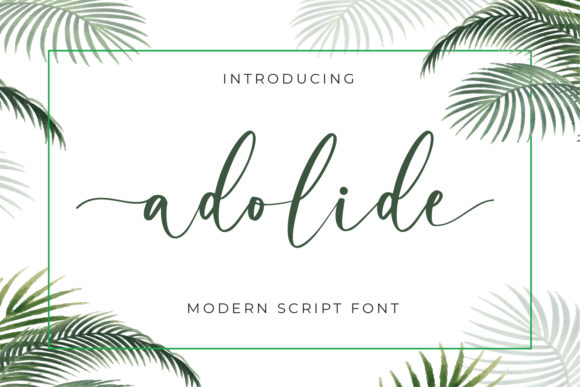
Journey into the realm of elegance with Adolide Font, a script typeface that will transform your creative visions into masterpieces. Its delicate strokes, reminiscent of a skilled calligrapher's hand, will breathe life into your designs, capturing the essence of heartfelt emotions and timeless beauty.
Adolide Font: The Epitome of Sophistication
Adolide Font is a symphony of grace and sophistication, meticulously crafted to elevate your projects with an aura of refinement. Its balanced and varied structure, neither too thin nor too thick, ensures harmony in every letterform, enhancing the visual appeal of your creations.
Embrace the Versatility of Adolide Font
Adolide Font is a versatile chameleon, effortlessly adapting to a myriad of design endeavors. Whether it's wedding invitations adorned with intricate flourishes, heartfelt love letters penned with romantic charm, or captivating social media posts that demand attention, Adolide Font rises to every occasion with unwavering elegance.
Unleash Your Creativity with Adolide Font
Adolide Font is your creative playground, inviting you to explore the boundless possibilities of self-expression. Let your imagination soar as you craft stunning logos that exude professionalism, design eye-catching posters that captivate audiences, or create enchanting branding materials that leave a lasting impression.
Adolide Font: A Testament to Quality
Adolide Font is a testament to quality, meticulously crafted with the utmost care and attention to detail. Each letterform is a work of art, carefully shaped to ensure legibility and visual harmony. The result is a font that exudes sophistication and professionalism, elevating your projects to new heights.
Experience the Magic of Adolide Font Today
Adolide Font is more than just a font; it's an experience that will transform your creative endeavors into works of art. Embrace the beauty of Adolide Font and watch as your designs flourish with elegance, sophistication, and a touch of magic.